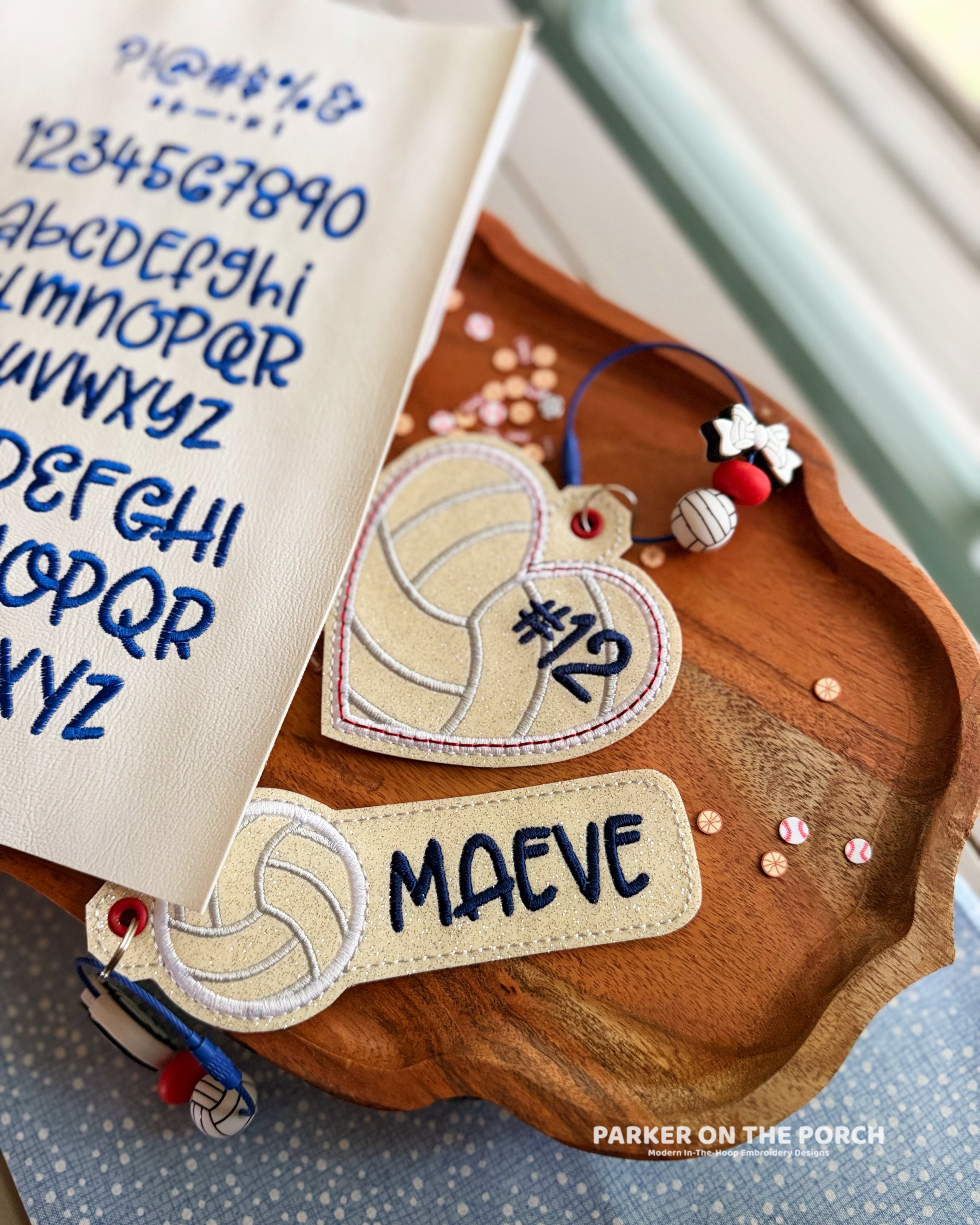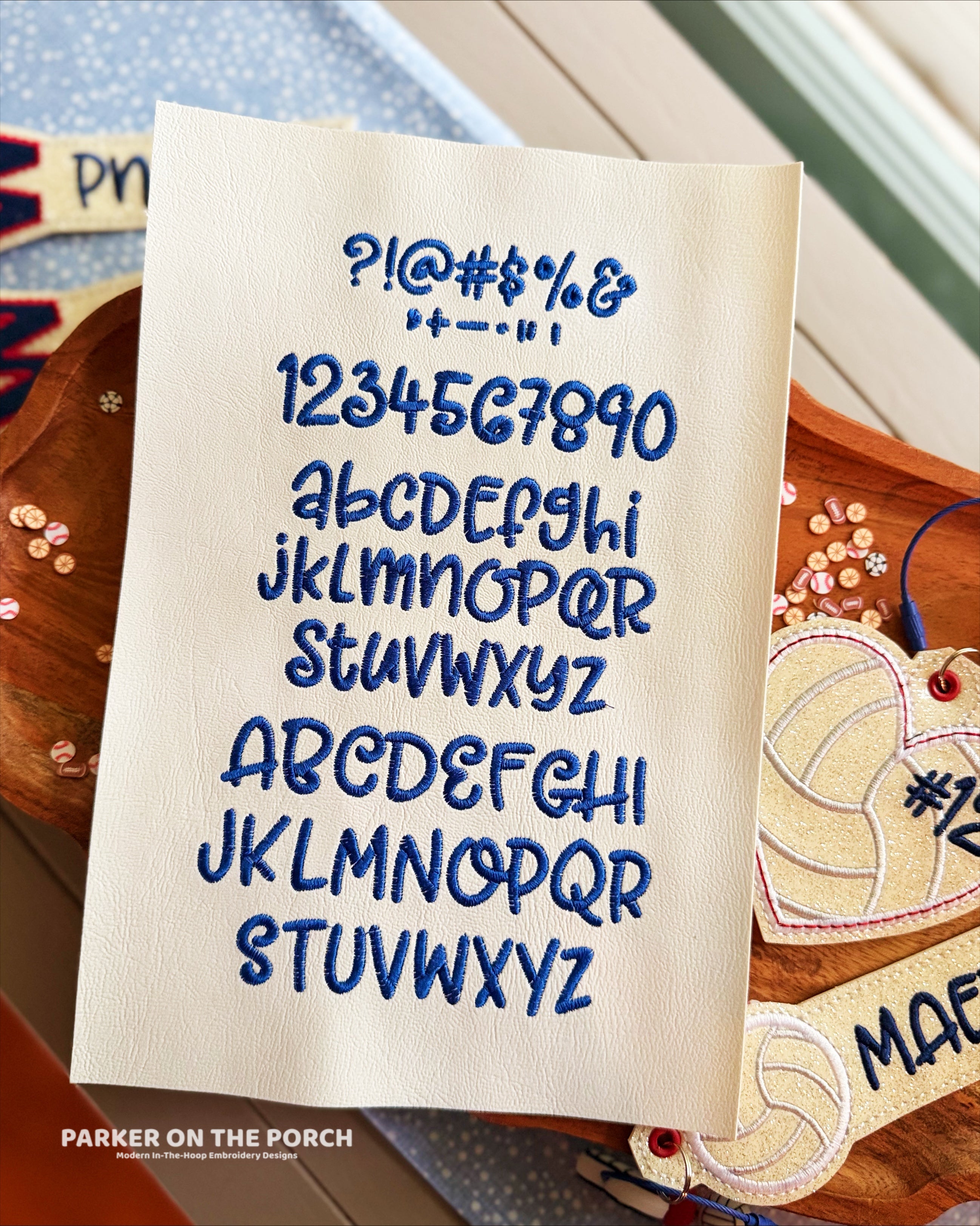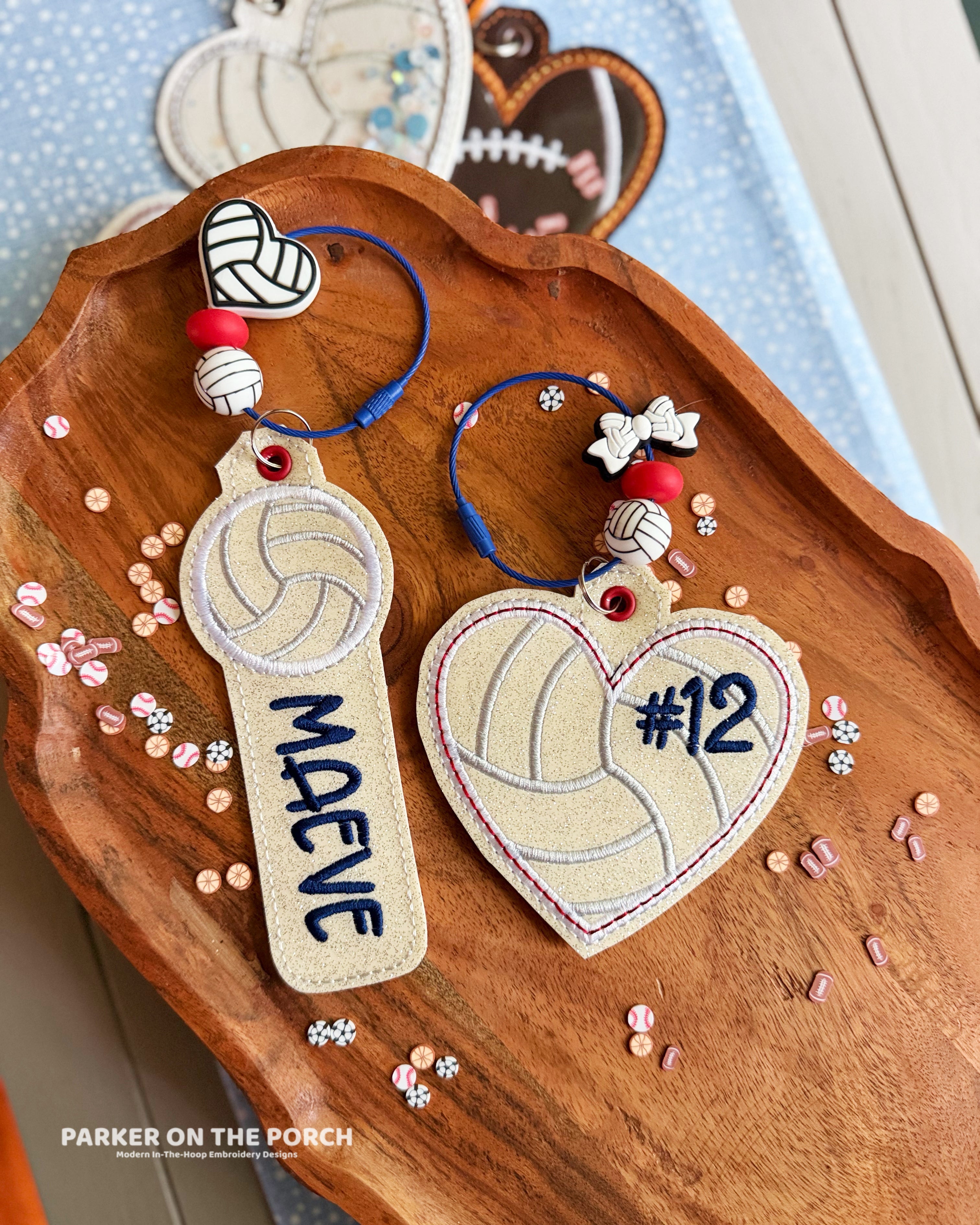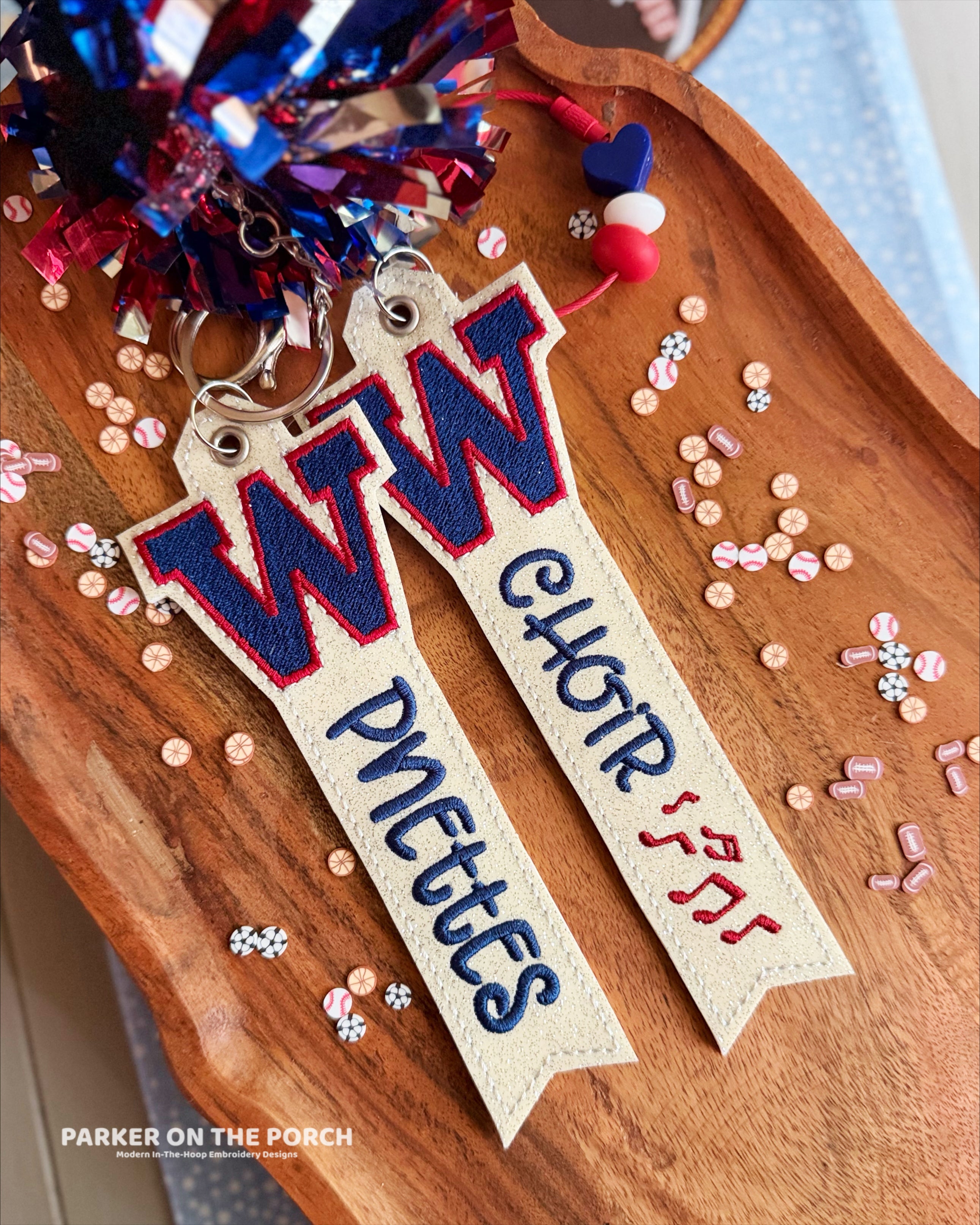
Garlic Butter is a fun, playful handwritten-style embroidery font with a casual, slightly whimsical look. Its tall, narrow letters make it perfect for banners, personalization, names, signs, appliqué projects, bags, and more.
Digitized with a smooth satin stitch finish, Garlic Butter includes uppercase and lowercase letters, numbers, and punctuation in three sizes so you can mix, match, and personalize all kinds of projects.
This is the font you've seen on one of our most-loved project, First day/Last day of School Banner for years — and we're so excited to finally offer it as an embroidery font!
- Satin stitch finish